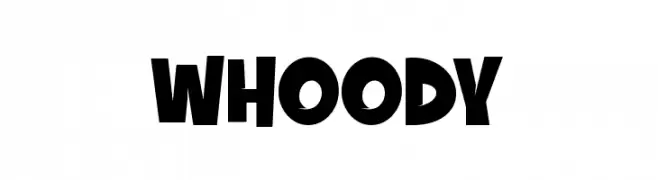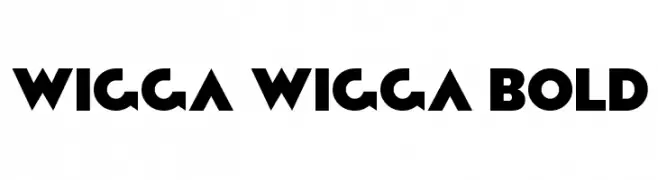
• West London
A modern, elegant script font with flowing, cursive characters and sophisticated swashes.
• Western Bang Bang
A bold, distressed Western-style font with strong serifs and textured characters.
• Western Bang Bang Clean
A bold, Western-style font with strong serifs and a rugged aesthetic.
• Westey
A flowing, cursive font with elegant loops and a handwritten style.
• White Army
A bold, stencil-style font with a rugged, military-inspired design.
• whoody
A bold, playful font with a cartoonish style and dynamic character shapes.
• Wigga Wigga Bold
• Wild Bandit
A bold, modern font with strong, thick strokes and rounded edges.
• Wild Bandit Extrude
Bold, chunky font with rounded edges and a strong, playful presence.
• Wild Bandit Extrude Italic
A bold, extruded italic font with a playful and dynamic style.